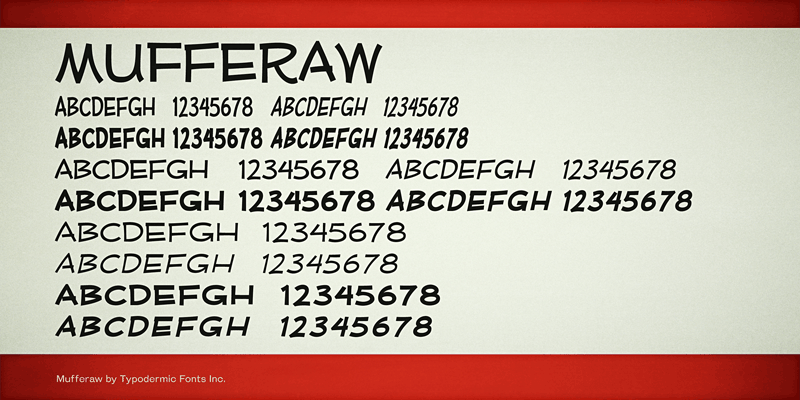
This font includes a license that allows free commercial use: sometimes referred to as a desktop license. This allows you to install the font on a computer and use it to create posters, web graphics, game graphics, t-shirts, videos, signs, logos and more. Read the license agreement for details. Big Joe Mufferaw was a legendary Ottawa valley hero; a giant of a man renowned for his strength and simple, good nature. Mufferaw, the font, aspires to the same qualities; strong but friendly and uncomplicated. The well-defined but playful shapes have a slightly rustic bent and low x-heights give the illusion of weightiness without being squat or heavy. If you'd like to embed this font in an app, ebook, on the web or anything that's not covered by the desktop license agreement, visit the link below. You'll find distributors who offer different types of licenses or you can contact me for help. http://typodermicfonts.com/mufferaw/ This free font is part of a larger font family. Check out the rest of the family through the link above. |